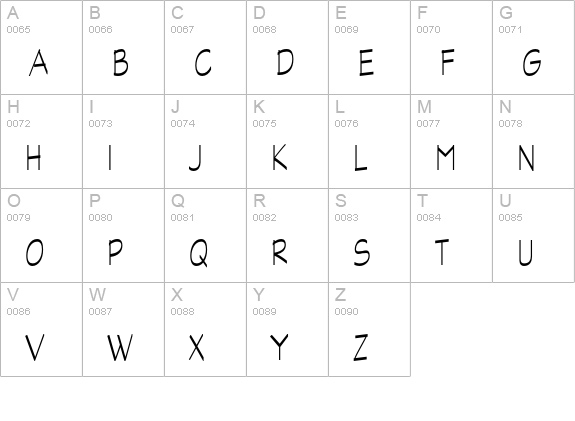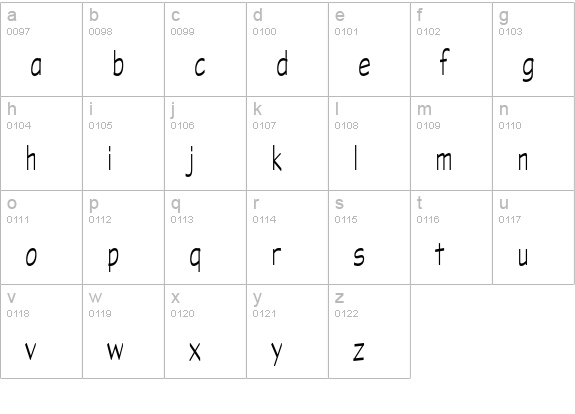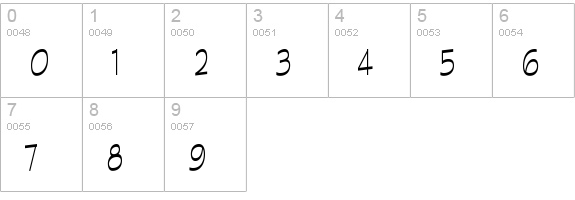
Graphite Std Light Narrow Font Details
Graphite Std Light Narrow is a refined, elegant, condensed-width variant in the Graphite typeface family \xE2\x80\x94 well suited to elegant body text, refined sub-headings, and luxury branding.
Graphite Std Light Narrow is a sleek and modern typeface that exudes elegance and sophistication. With its clean lines and narrow proportions, this font is perfect for creating a contemporary and professional look in your designs. The light weight adds a touch of delicacy while maintaining readability. Whether used for branding, editorial design, or web projects, Graphite Std Light Narrow offers a versatile and stylish option. Best of all, Graphite Std Light Narrow is available for free download at FontsMarket.com. Take advantage of this opportunity to enhance your projects with this high-quality font without any cost. Download Graphite Std Light Narrow today and elevate your designs with its refined aesthetic and timeless appeal.